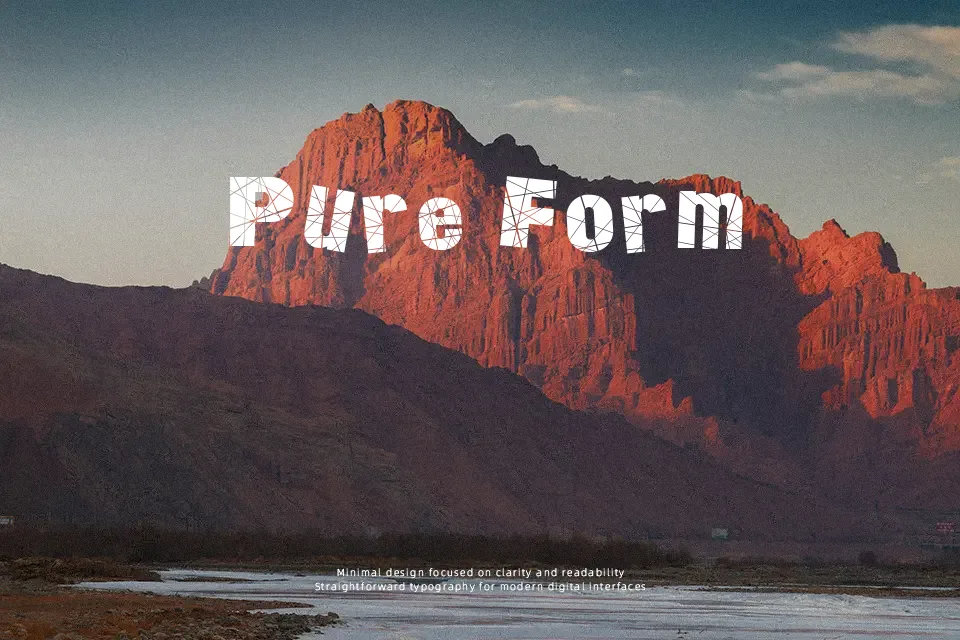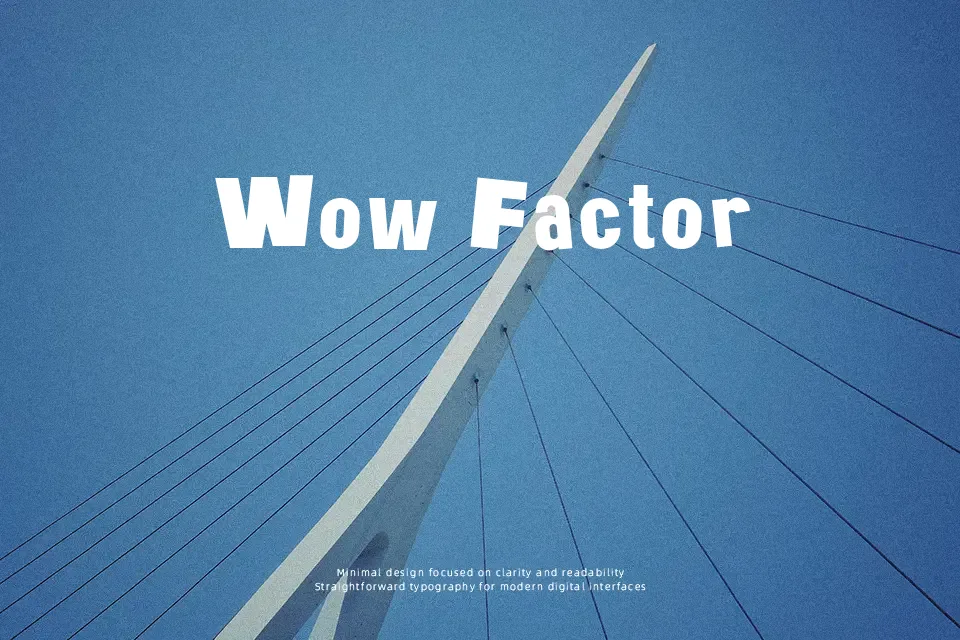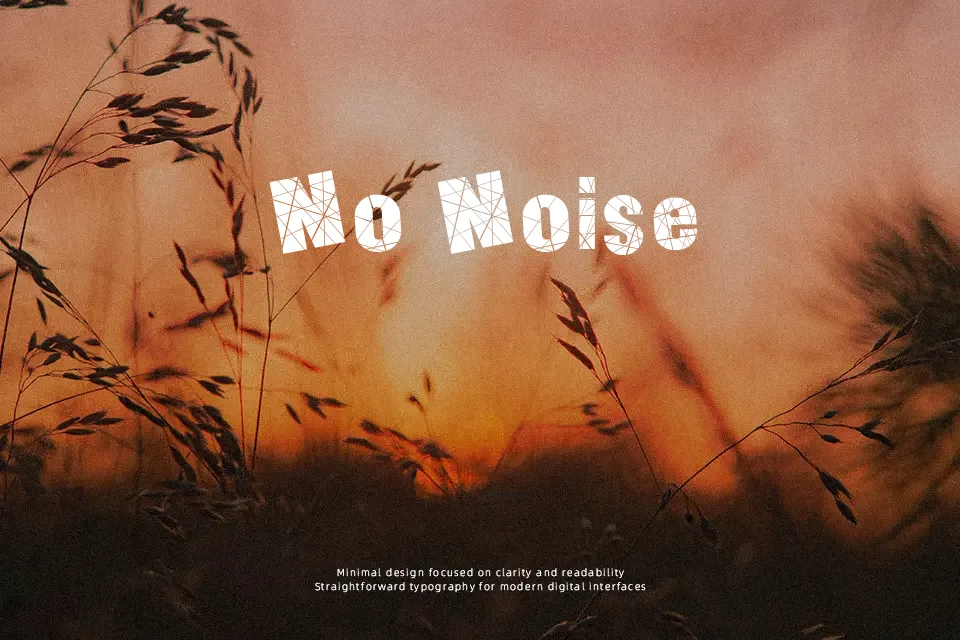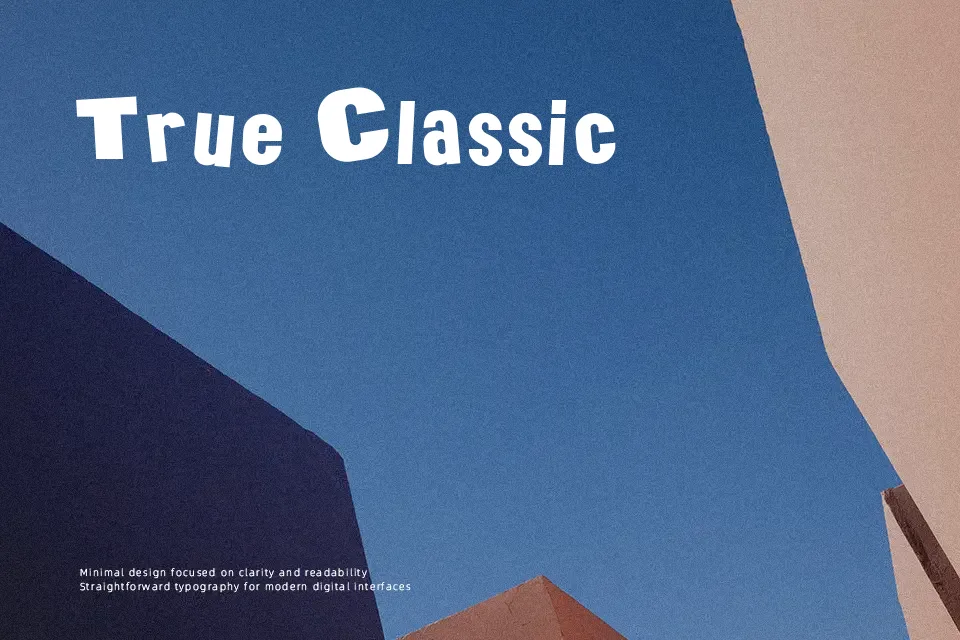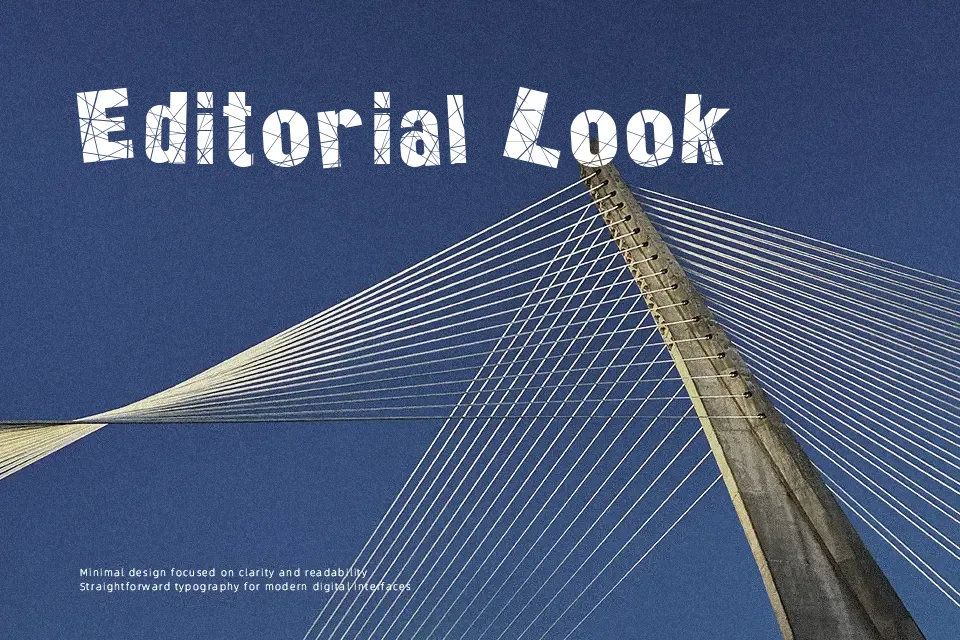
Action of the Time Font
The letterforms in Action of the Time carry heavy erosion — strokes appear chipped, fractured, and surface-worn, as if stamped onto aged concrete. The overall structure is bold and blocky, leaning display-weight with low stroke contrast and a rough, textured fill that reads aggressive rather than decorative. It suits horror event flyers, underground music posters, and dark editorial headers where grit is the point. Pairing it with clean sans-serif body text helps ground the layout. That said, legibility degrades quickly at smaller sizes, and it has no realistic application in professional or corporate settings. If you need something controlled, this is not it — but for projects that live or die by attitude, it delivers exactly that.
Best For:- Horror or Halloween event posters
– Rock, metal, or underground music visuals
– Dark-themed gaming or film title treatments
– Distressed merchandise and apparel graphics
Not Ideal For:- Body text or long-form reading
– Corporate reports or formal business collateral
– Small-size applications (web buttons, captions)
– Clean, minimal brand identities
Perfect for advertising, film, and gaming, with a bold and decorative style.